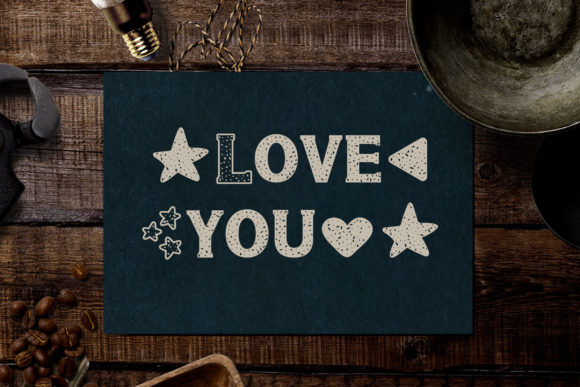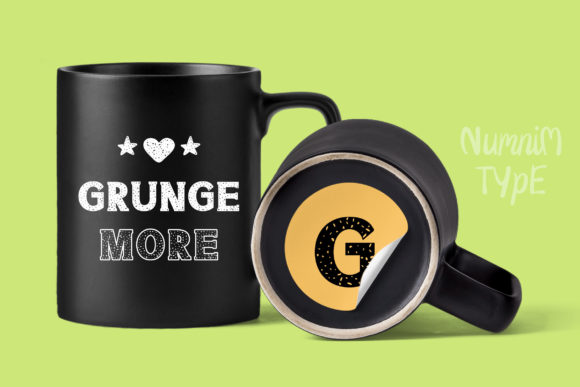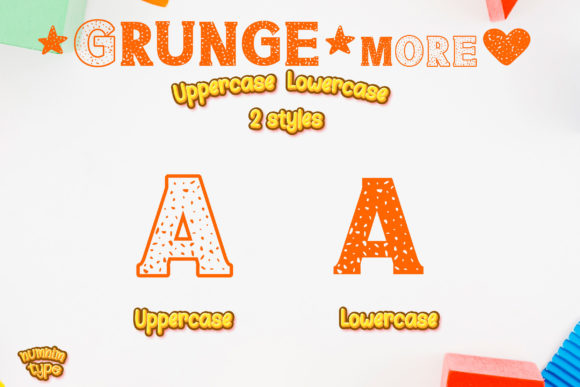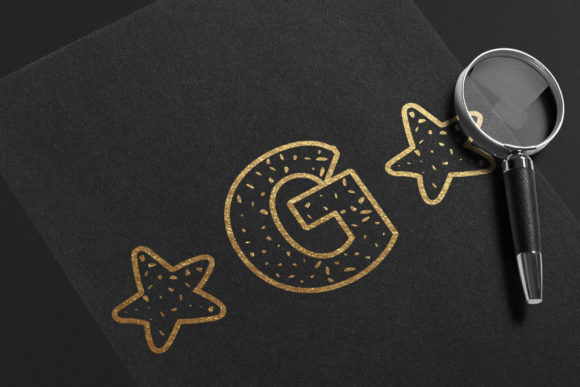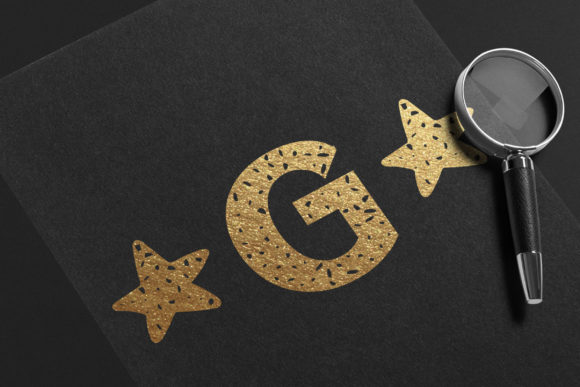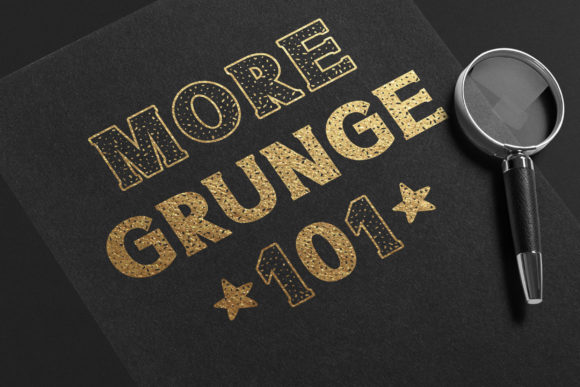
Grunge More Font: Elevate Your Designs with a Cool, Bold, and Vintage Style
Are you tired of using the same old fonts in your designs? Do you want to add a touch of nostalgia and edginess to your crafting, digital designing, presentations, or greeting cards? Look no further than Grunge More Font! This cool, bold, and vintage-styled display font is perfect for anyone looking to elevate their designs and make them stand out.
What Makes Grunge More Font Special?
Grunge More Font is a unique and versatile font that can be used in a variety of design projects. Its bold and vintage style gives it a distinctive look that’s sure to grab attention. Whether you’re creating a logo, poster, or social media graphic, this font is sure to make your design pop.
One of the best things about Grunge More Font is its PUA (Private Use Area) encoding. This means that you can access all of the glyphs and swashes with ease, giving you even more creative freedom to experiment with different styles and designs.
Grunge More Font is a dream come true for designers and crafters alike. Its versatility and ease of use make it perfect for a wide range of projects, from digital designing to crafting and DIY projects.
For designers, Grunge More Font is a great addition to any font library. Its bold and vintage style makes it perfect for creating eye-catching headlines, titles, and logos. And with its PUA encoding, you can easily access all of the glyphs and swashes to add an extra touch of personality to your designs.
For crafters, Grunge More Font is a great way to add a personal touch to your DIY projects. Whether you’re making greeting cards, scrapbooking, or creating other handmade crafts, this font is sure to add a touch of elegance and sophistication.
Key Features of Grunge More Font
- Cool, bold, and vintage style: Grunge More Font has a unique and distinctive look that’s sure to grab attention.
- PUA encoded: Easily access all of the glyphs and swashes to add an extra touch of personality to your designs.
- Versatile: Perfect for a wide range of design projects, from digital designing to crafting and DIY projects.
Grunge More Font is a cool, bold, and vintage-styled display font that’s perfect for designers and crafters alike. Its versatility, ease of use, and PUA encoding make it a great addition to any font library. Whether you’re creating digital designs or handmade crafts, Grunge More Font is sure to elevate your designs and make them stand out. So why wait? Download Grunge More Font today and start creating!